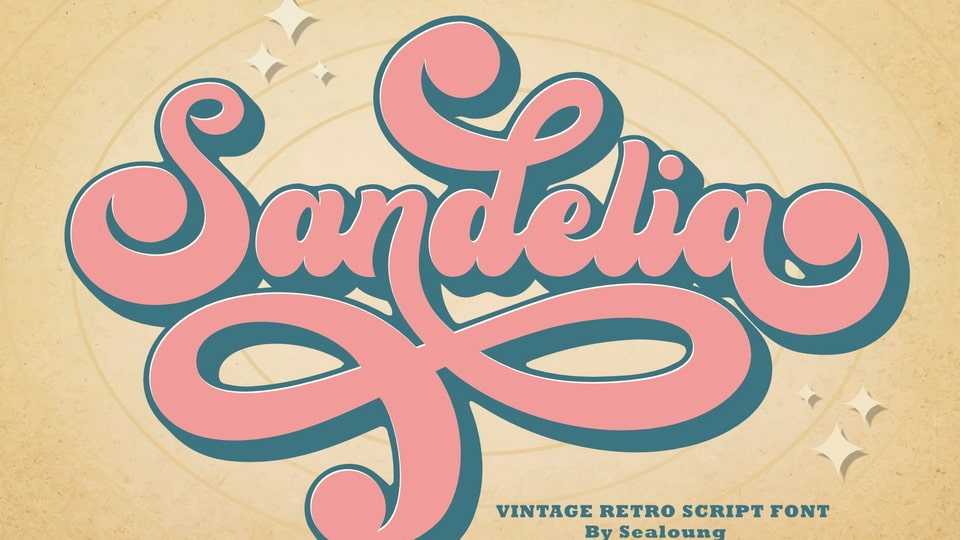
Download Sandelia font, a retro script typeface with groovy and vintage vibes. This cool, flowing font is perfect for all your projects that require a unique, retro vibe.
Designer: Sealoung